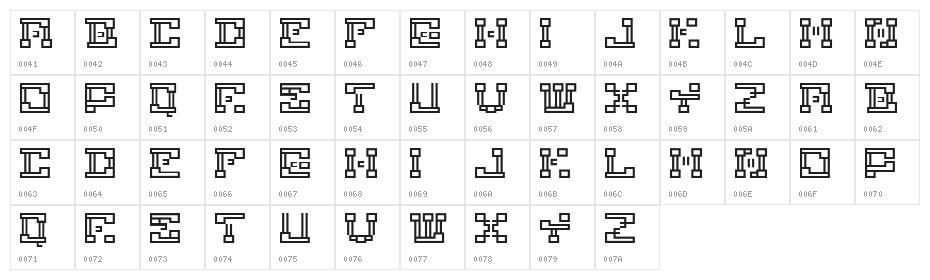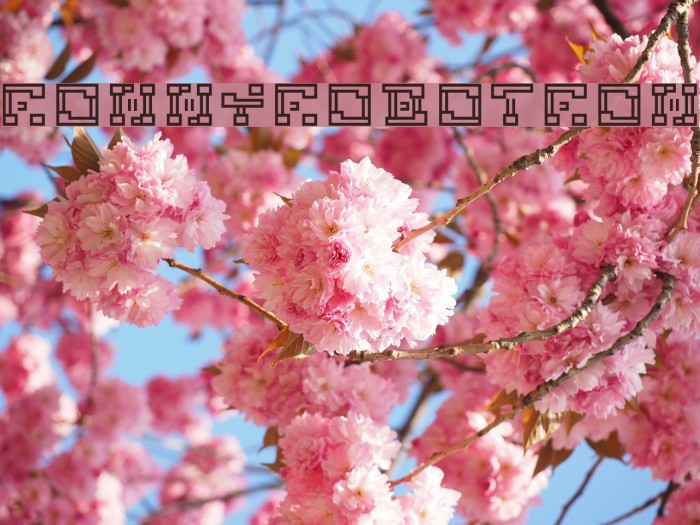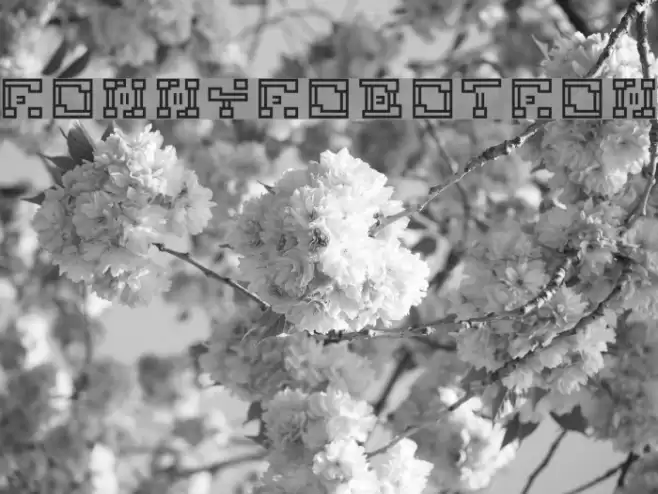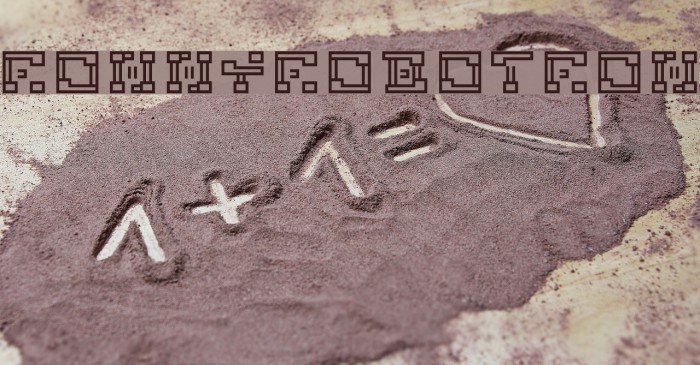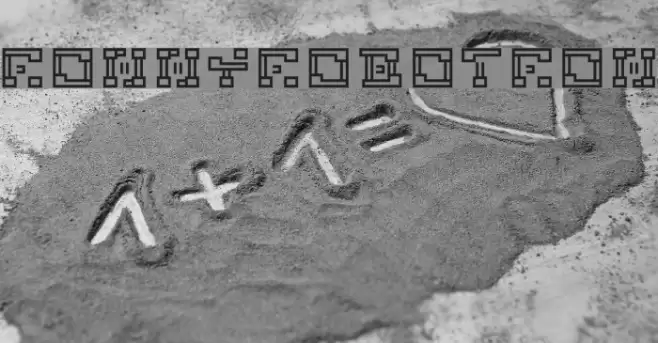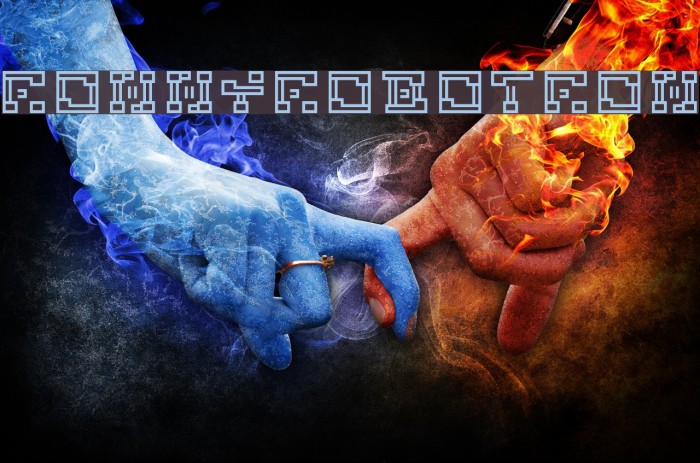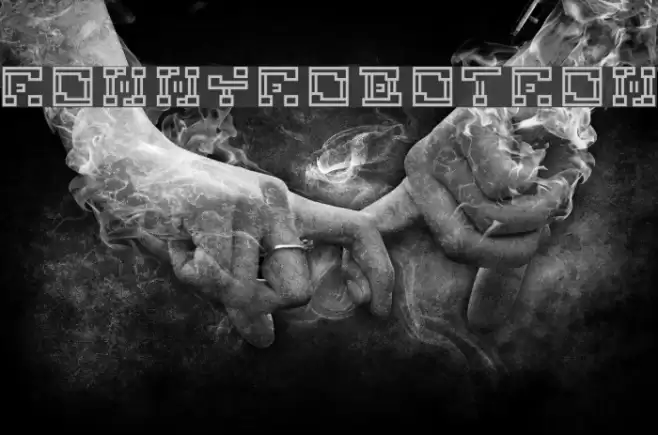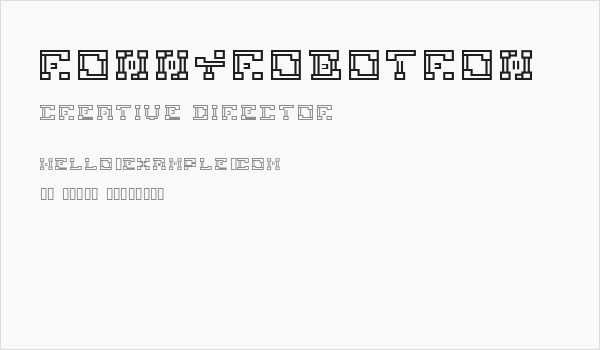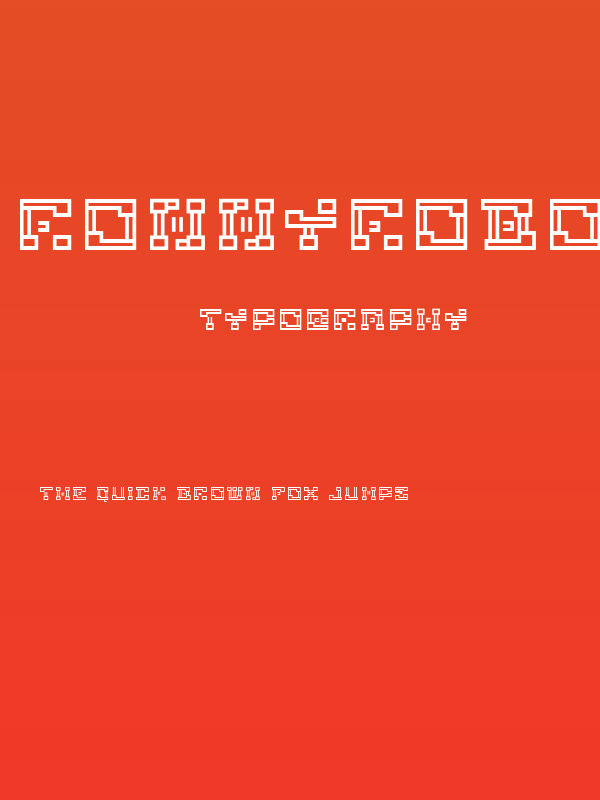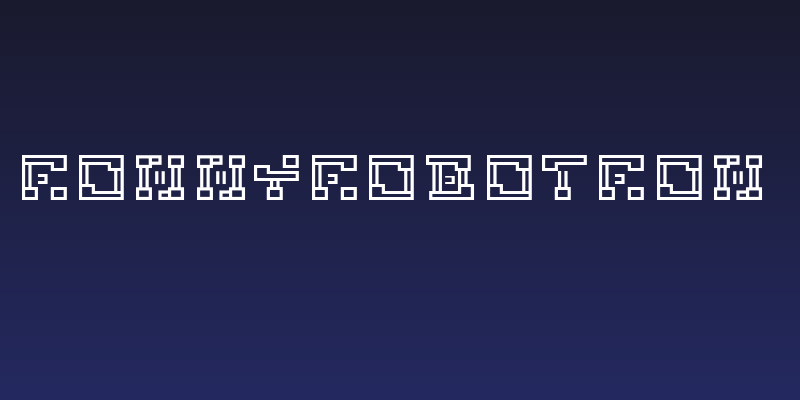
ronnyrobotron Font
ronnyrobotron Description
This font features a distinct, futuristic design with a pixelated, robotic aesthetic. Each character is constructed with a series of blocky, geometric shapes that create a digital, tech-inspired look. The uppercase letters are bold and structured, while the lowercase letters maintain the same pixelated style, offering consistency across the typeface. Numbers and special characters are also designed with the same attention to detail, ensuring a cohesive appearance. The font's unique style makes it ideal for projects that require a modern, digital feel, such as video game graphics, tech branding, or sci-fi themed designs.
| Use Case | Logos, Headlines, Digital Art |
| Proposed Projects | Ideal for video game graphics, tech branding, sci-fi themed designs, and digital art projects. |